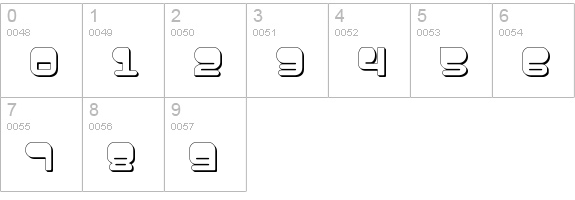
Introducing the mesmerizing HYPNO Agent 3D font, a captivating and dynamic typeface that will hypnotize your audience with its futuristic design. This cutting-edge font features sleek 3D effects that add depth and dimension to your projects, making them truly stand out. With its bold and modern aesthetic, HYPNO Agent 3D font is perfect for creating eye-catching headers, titles, and logos that demand attention. Whether you're designing for print or digital media, this font is sure to make a bold statement and leave a lasting impression. Best of all, HYPNO Agent 3D font is available for free download exclusively at FontsMarket.com. Now you can elevate your designs without breaking the bank, thanks to this stunning font that is both high-quality and budget-friendly. Don't miss out on this opportunity to enhance your projects with the captivating HYPNO Agent 3D font – download it today and let your creativity soar!